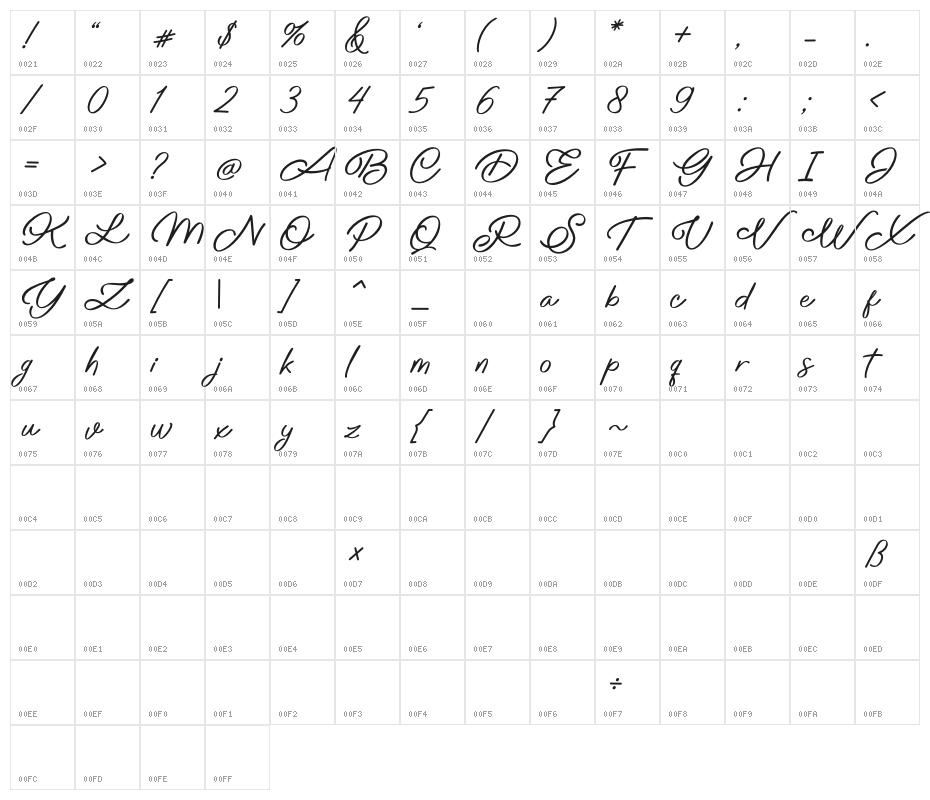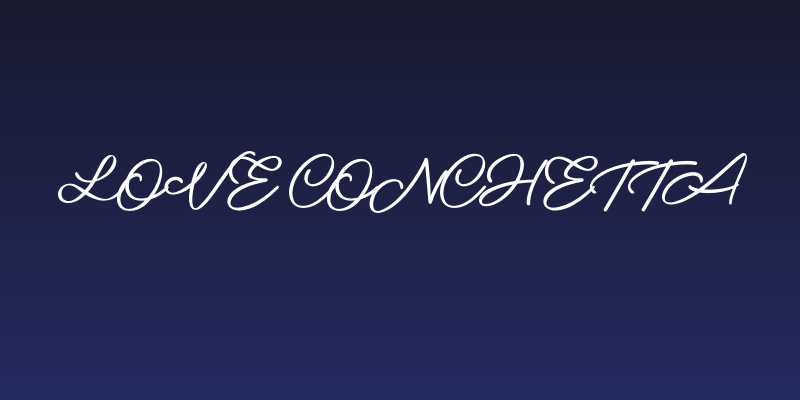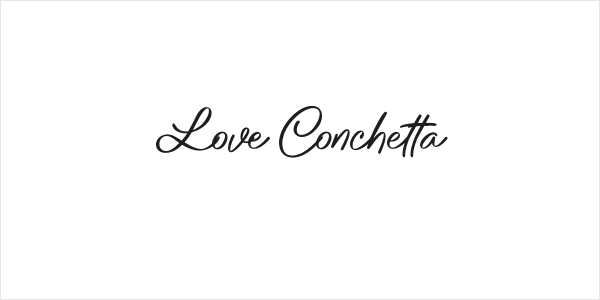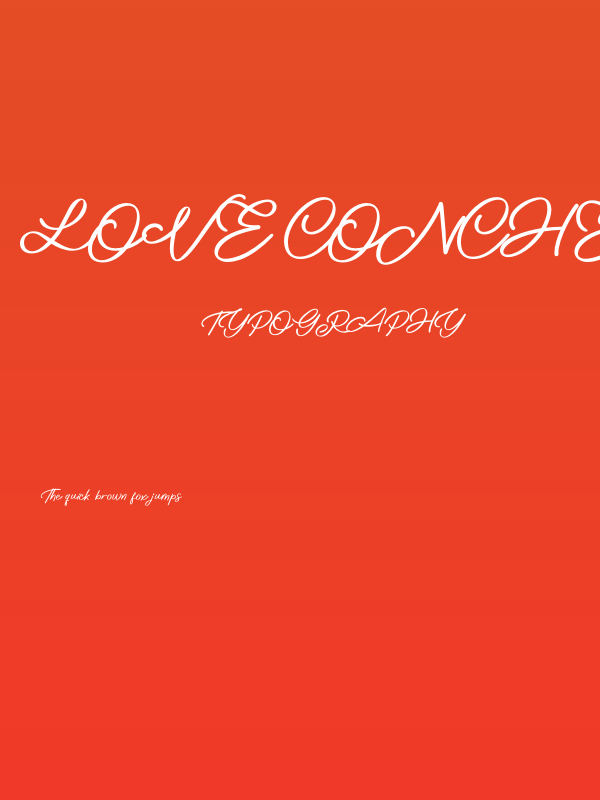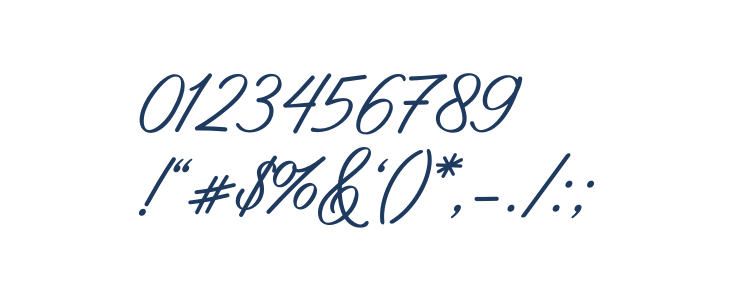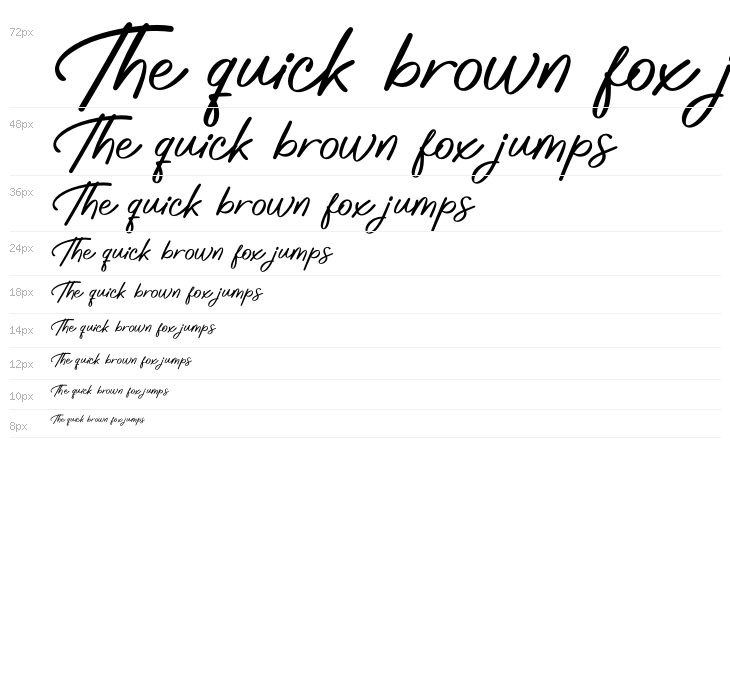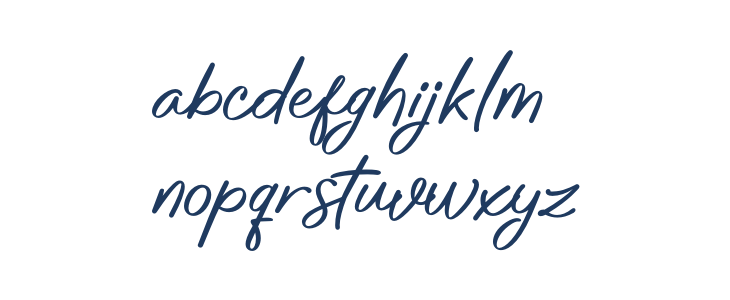
Love Conchetta Font
Love Conchetta Description
This elegant script font features flowing, interconnected letters that mimic the fluidity of natural handwriting. The uppercase letters are ornate and decorative, with sweeping curves and loops that add a touch of sophistication. The lowercase letters maintain a consistent style, with smooth transitions and a slightly slanted orientation that enhances the handwritten feel. The numerals are clear and legible, maintaining the same graceful style as the letters. Special characters are thoughtfully designed to match the overall aesthetic, making this font versatile for various applications. The font's overall appearance is both stylish and approachable, making it suitable for a range of creative projects.
| Overall Style | Elegant, Handwritten |
| Use Case | Invitations, Logos, Decorative text |
| Proposed Projects | Ideal for wedding invitations, greeting cards, branding, and elegant logo designs. |